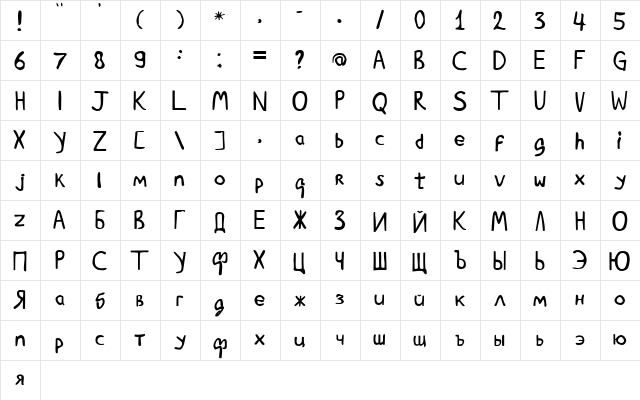
Goedemorgen, Luc[as] Regular
Design Context for Goedemorgen, Luc[as] Typeface
Goedemorgen, Luc[as] takes a measured approach to typography — its balanced proportions and neutral character make it a reliable workhorse for both digital and print work.